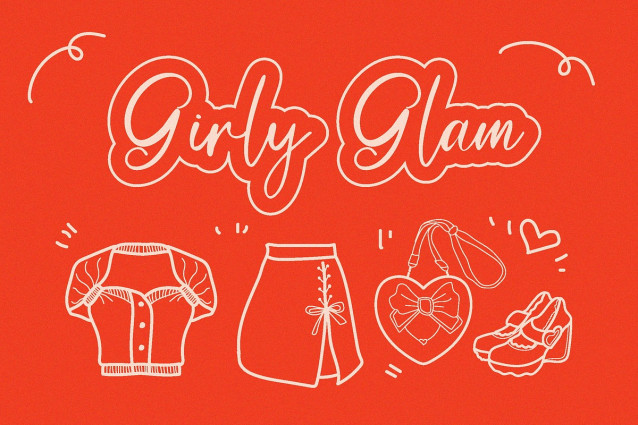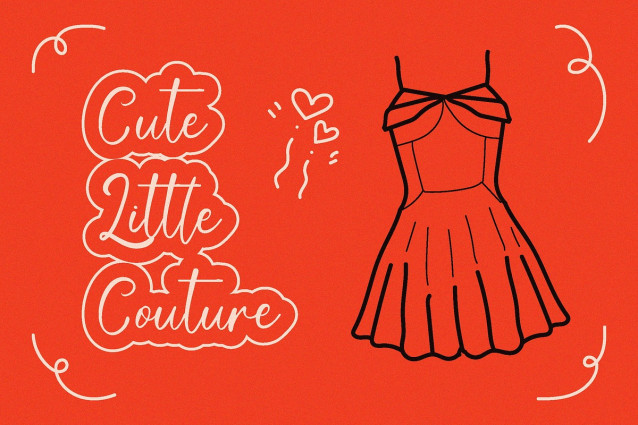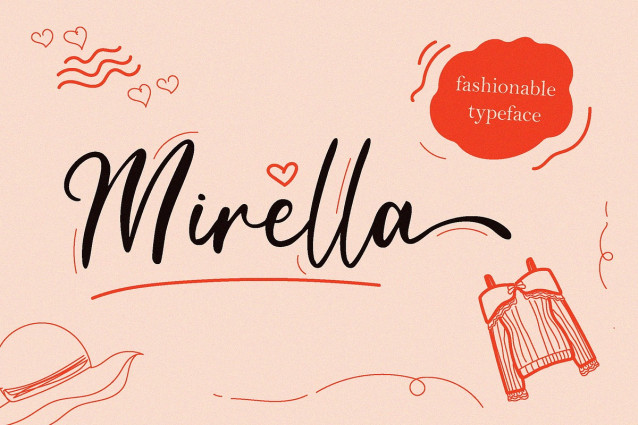
Mirella Font
Mirella Font is a stylish and fashionable script typeface designed to bring elegance and personality to modern branding. Featuring smooth flowing strokes, confident curves, and expressive handwritten details, Mirella captures the essence of contemporary fashion aesthetics. Its bold yet graceful letterforms make it perfect for fashion products, fashion advertisements, merchandise, beauty branding, social media visuals, and eye-catching lettering projects. The dynamic swashes and natural rhythm create a luxurious yet approachable feel, helping your designs look refined, trendy, and memorable. Whether you are building a fashion brand identity or creating stylish promotional materials, Mirella adds that signature touch of sophistication and charm.